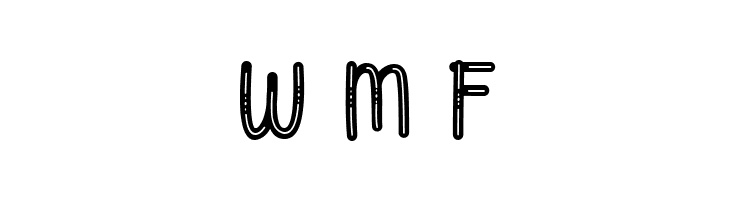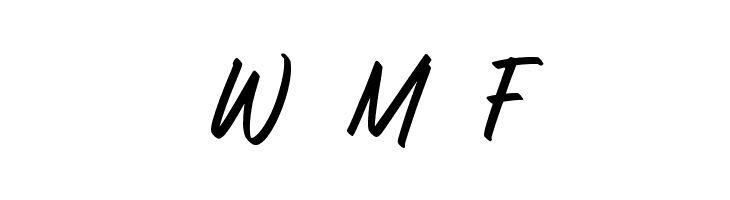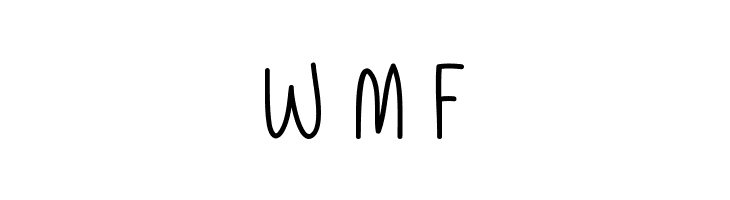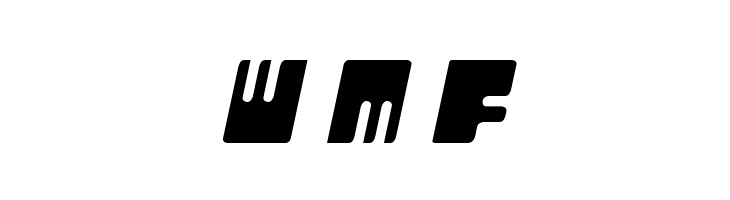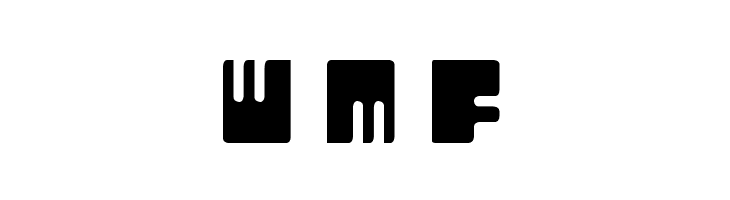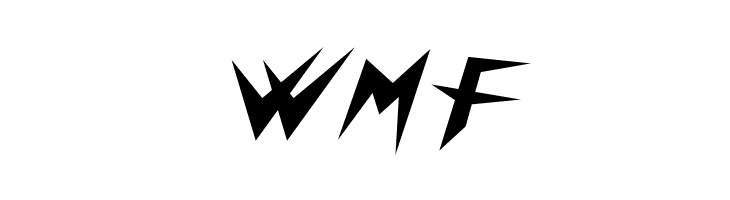
A playful, hand-drawn font with bold outlines and rounded edges.
A graceful, cursive font with elegant, flowing strokes.
A bold, handwritten-style font with dynamic and fluid strokes.
A bold, shaded serif font with a vintage, three-dimensional style.
A playful, handwritten font with smooth, rounded edges and a casual style.
A bold, whimsical font with high contrast and playful, artistic elements.